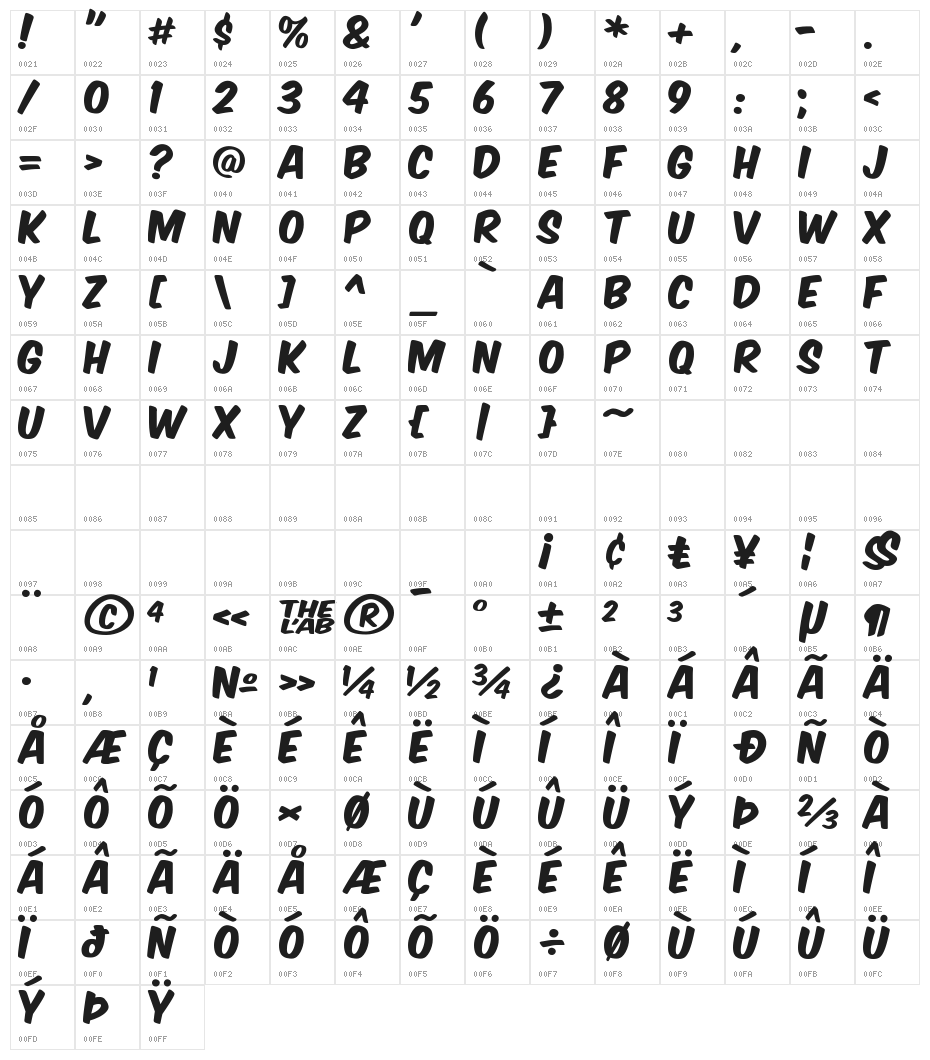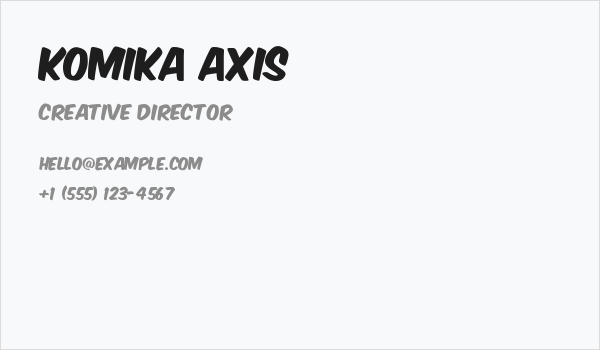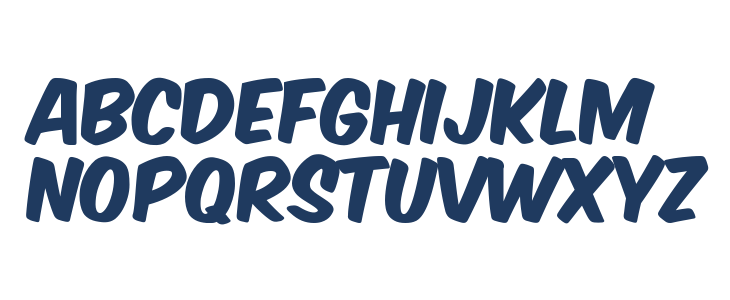
Komika Axis Font
Komika Axis Description
This font features a bold and playful design, characterized by its thick, rounded strokes and dynamic, slightly slanted letterforms. The uppercase and lowercase letters maintain a consistent style, with a strong emphasis on readability and a fun, energetic appearance. The numbers and special characters follow the same stylistic approach, ensuring a cohesive look across all elements. The font's boldness and unique style make it stand out, making it ideal for projects that require a lively and engaging visual impact.
| Overall Style | Playful, Energetic |
| Proposed Projects | Ideal for comic books, children's books, playful branding, and eye-catching posters. |